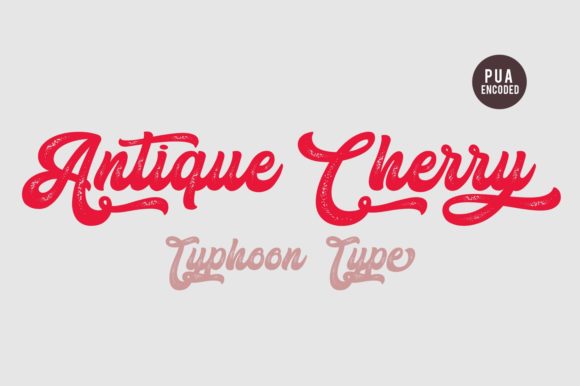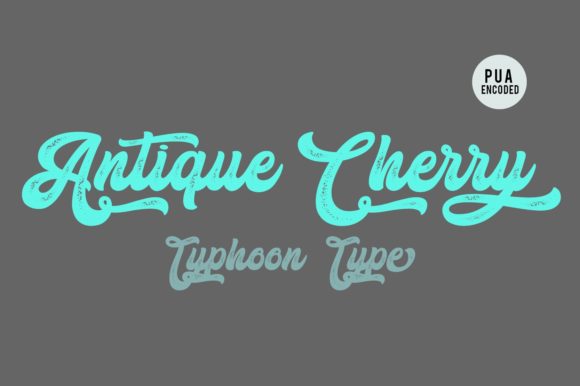
HomeScript FontsAntique Cherry Font Script Fonts Antique Cherry Font FacebookXPinterestWhatsApp Antique Cherry Font Poster 2 About Antique Cherry Font Antique Cherry is a vintage script with an incredibly playful style. DOWNLOAD ON CREATIVE FABRICAThis font is sold and delivered by Creative Fabrica. Font Canyon may earn a commission if you buy through this link. People also explored Bellagia Font Nyai Ontosoroh Font Arrafah Font Snowy Winter Font Summer Dream Font Cocktail Shaker Peanut Font Jellybeans Font Jandella Font 349 0 TagsAntique Cherry Font Previous articleBarokatt FontNext articleAurora Font LEAVE A REPLY Cancel reply Comment: Please enter your comment! Name:* Please enter your name here Email:* You have entered an incorrect email address! Please enter your email address here Website: Save my name, email, and website in this browser for the next time I comment. Personal Use Free Cute Butterfly Personal Use Free Read more about this font Blast Personal Use Free Read more about this font Butter Belly Personal Use Free Read more about this font Vanchrome Personal Use Free Read more about this font BLOG How to Cut Any Font on Cricut: Convert a Font to SVG (Free) Turn any font into a clean SVG so it cuts crisp on Cricut - a quick 3-step workflow using a free font-to-SVG tool. Elegant Wedding Invitation Fonts – Handwritten & Script Fonts To increase your work productivity, choose the most readable fonts. The 10 Best Handwriting Fonts to Add Personality to Your Designs